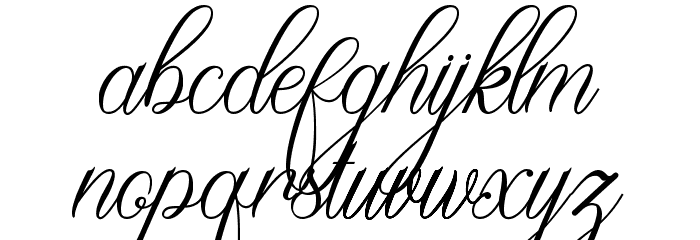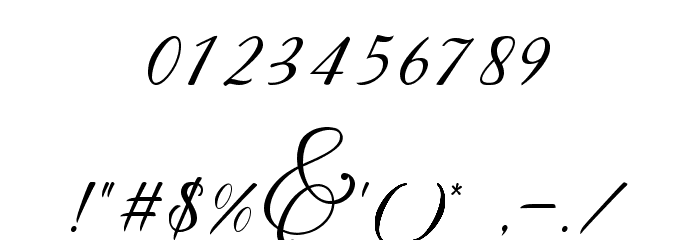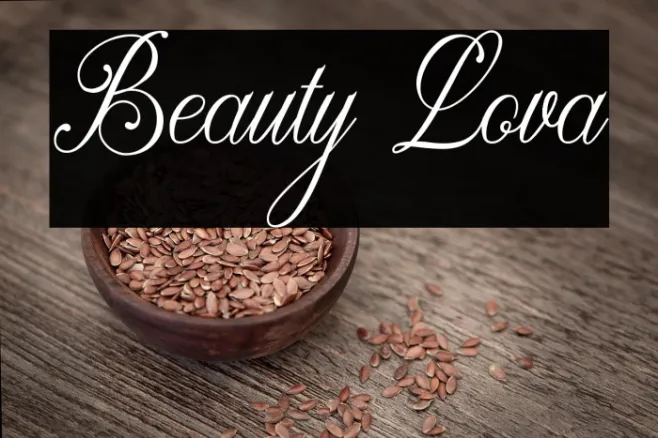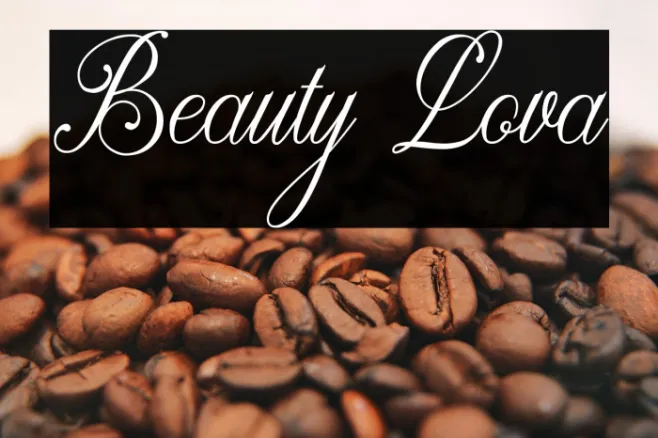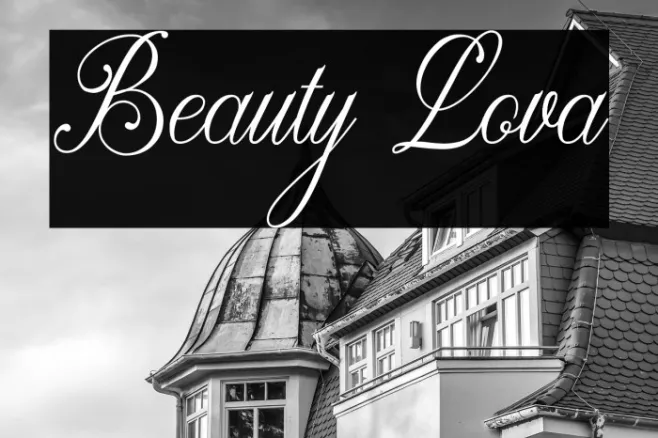
Beauty Lova Font
This elegant script font features a flowing, cursive style with intricate loops and swashes that give it a sophisticated and decorative appearance. The uppercase letters are particularly ornate, with flourishes that extend beyond the baseline and cap height, adding a touch of grandeur. The lowercase letters maintain a consistent style, with smooth, connected strokes that enhance readability while retaining the font's artistic flair. The numerals and special characters are designed to match the overall aesthetic, ensuring a cohesive look across all text elements. This font is ideal for projects that require a touch of elegance and sophistication.
An elegant script font with flowing, decorative cursive letters.
- Proposed Projects: Wedding invitations, luxury branding, elegant logos, greeting cards, and high-end packaging.
- Use Case: Logos, Invitations, Decorative text